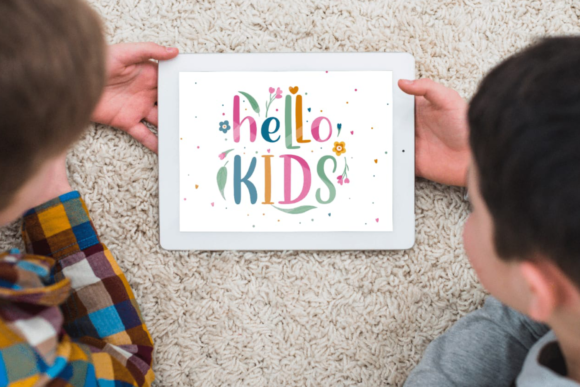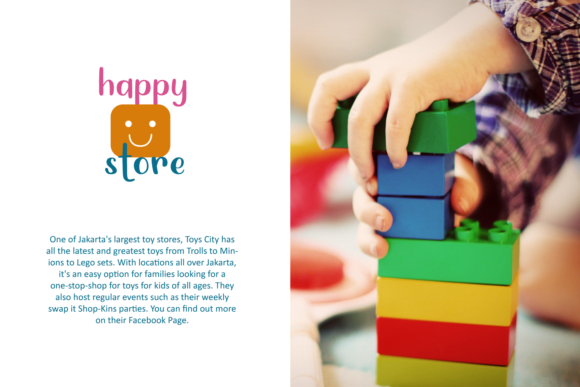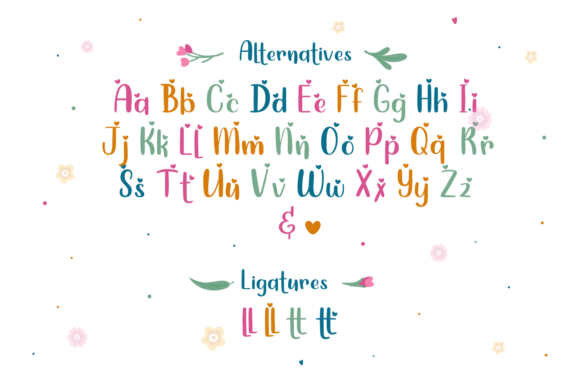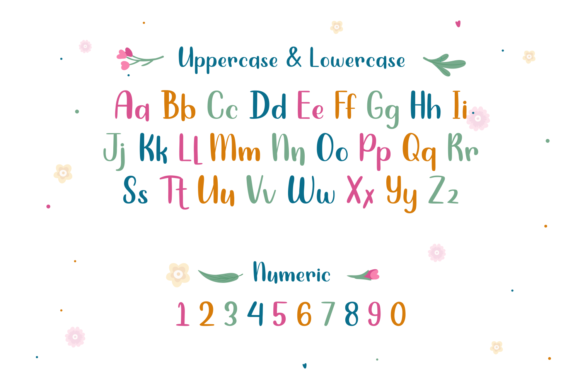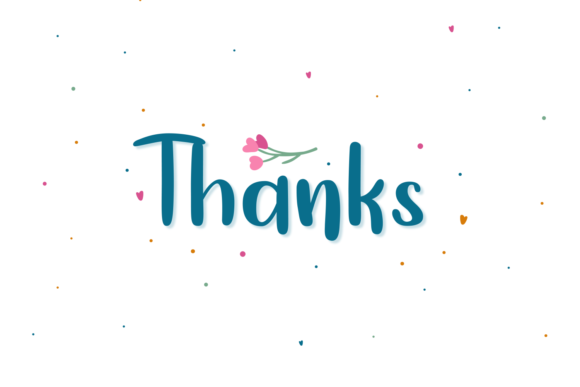
Hello Dudley Font
About Hello Dudley Font
Hello Dudley is a cool, joyful and friendly handwritten font. It embodies playfulness and authenticity and is the perfect choice for any children activity or school project.